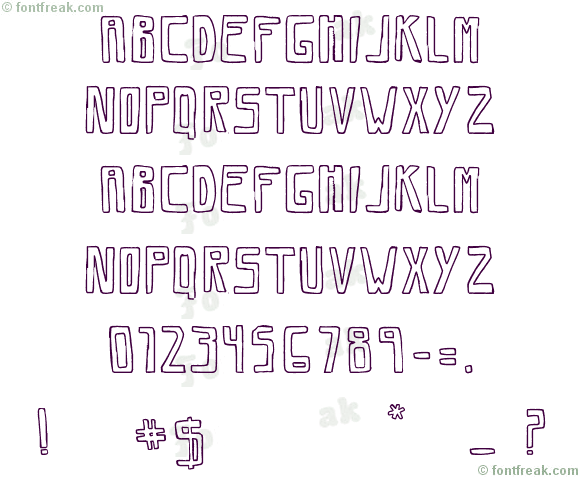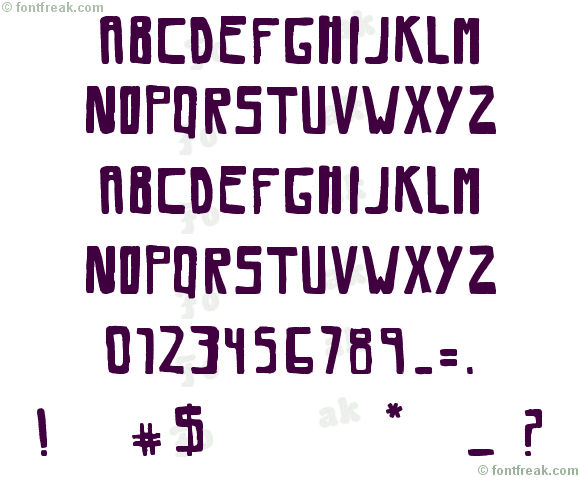
Savia Regular // ANTIPIXEL.COM.AR
Savia Regular // ANTIPIXEL.COM.AR by Antipixel, designed by Julia Martínez Diana, is a striking sans-serif typeface that combines modernity with a touch of uniqueness. Released in 2011 under a freeware license, this font features a bold stroke weight with minimal contrast, giving it a solid, reliable appearance. The character spacing is well-balanced, allowing for easy readability while maintaining a contemporary aesthetic. Savia Regular stands out with its distinctive outline style, which adds a playful yet sophisticated flair to any design.
This font is particularly suitable for a range of creative projects. It can be effectively used in branding materials, lending a fresh look to logos and business cards. The font's bold nature makes it ideal for attention-grabbing headlines in magazines or online articles. Additionally, Savia Regular is an excellent choice for restaurant menus, where it can evoke a sense of modern dining experiences. Wedding invitations can benefit from its clean lines, providing a contemporary touch that complements various themes. It also works well in social media graphics, where clarity and style are paramount.
Targeting graphic designers, small business owners, and content creators, Savia Regular offers versatility without sacrificing personality. Its unique design elements are perfect for those looking to make a statement while ensuring their content is easily read and understood.
In conclusion, Savia Regular // ANTIPIXEL.COM.AR font free download is a standout choice for anyone seeking a modern sans-serif typeface. Its bold strokes and distinctive outline make it suitable for various applications, setting it apart in a crowded font landscape. This typeface not only enhances visual communication but also adds an element of style that can elevate any design project.